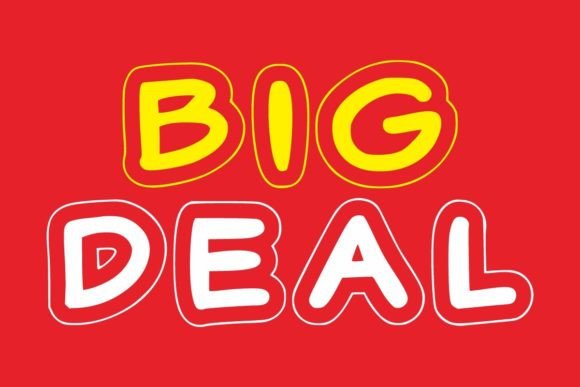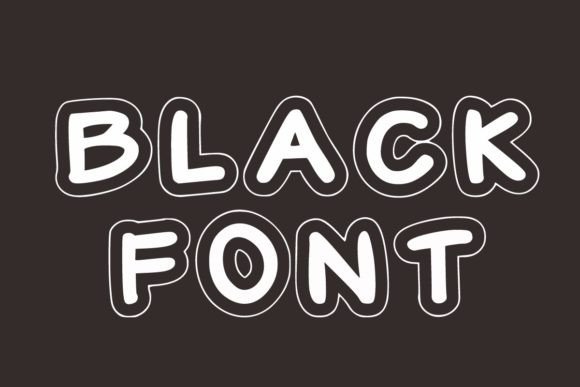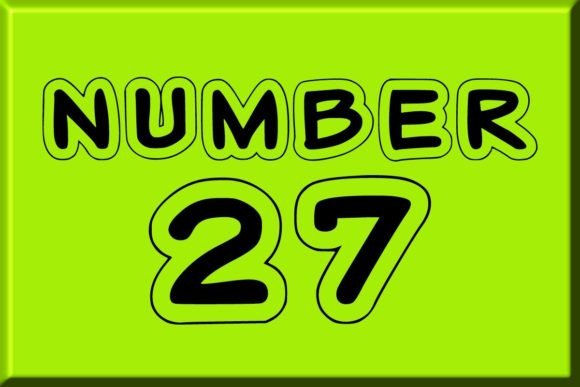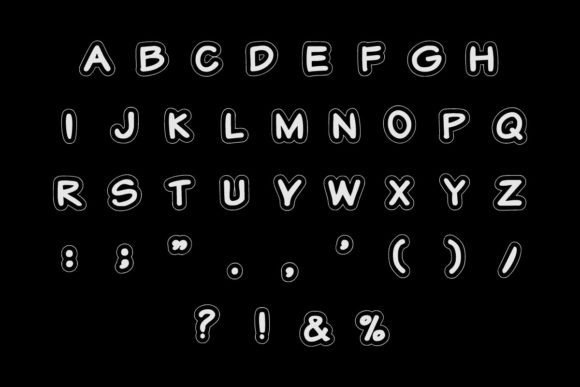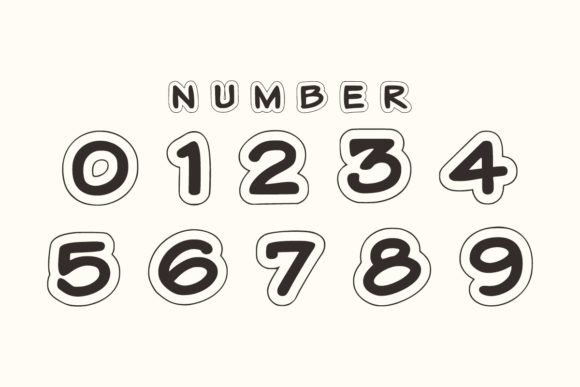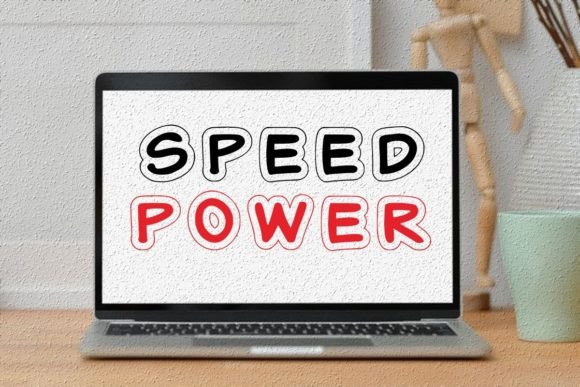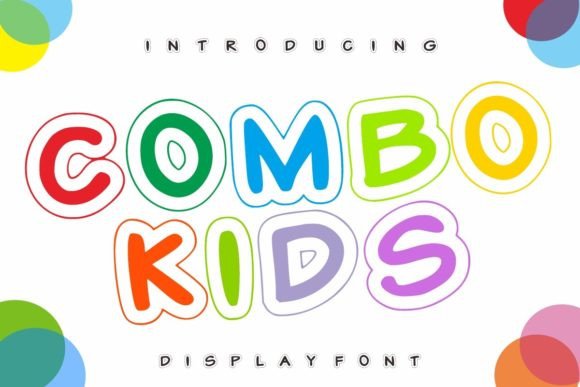
Introducing Combo Kids Font: The Perfect Choice for Playful and Fun Designs
Are you a designer or crafter looking for a font that can add a touch of playfulness and fun to your projects? Look no further than Combo Kids Font! This childish and bold display font is perfect for creating whimsical designs that are sure to delight kids and adults alike.
What is Combo Kids Font?
Combo Kids Font is a unique and eye-catching font that features chunky and rounded letters with a friendly and approachable feel. Its bold and playful design makes it ideal for use in children’s books, toys, and other fun projects. Whether you’re creating a logo, headline, or body text, Combo Kids Font is sure to add a touch of personality and whimsy to your design.
Key Features of Combo Kids Font
- Childish and bold design: Combo Kids Font features a bold and playful design that’s perfect for creating fun and engaging designs.
- Chunky and rounded letters: The font’s chunky and rounded letters have a friendly and approachable feel, making it ideal for use in children’s designs.
- Perfect for playful projects: Combo Kids Font is perfect for use in children’s books, toys, and other whimsical projects.
- Easily readable: Despite its bold and playful design, Combo Kids Font is easily readable, making it perfect for use in body text and headlines.
Use Cases for Combo Kids Font
Combo Kids Font is a versatile font that can be used in a variety of design projects, including:
- Children’s books: Combo Kids Font is perfect for use in children’s books, adding a touch of playfulness and fun to your story.
- Toys and games: The font’s bold and playful design makes it ideal for use in toys and games, adding a touch of personality and whimsy.
- Logos and branding: Combo Kids Font can be used to create fun and engaging logos and branding materials for kids’ products and services.
- Party decorations: The font’s playful design makes it perfect for use in party decorations, such as invitations, banners, and signs.
Tips for Using Combo Kids Font
Here are a few tips for using Combo Kids Font in your designs:
- Use it in large sizes: Combo Kids Font is perfect for use in headlines and titles, where its bold and playful design can really shine.
- Experiment with colors: The font’s playful design makes it perfect for use with bright and bold colors, so don’t be afraid to experiment and find the perfect color scheme for your design.
- Pair it with other fonts: Combo Kids Font can be paired with other fonts to create a unique and engaging design, so don’t be afraid to experiment and find the perfect font combination for your project.
Combo Kids Font is a unique and eye-catching font that’s perfect for designers and crafters looking to add a touch of playfulness and fun to their projects. Its bold and playful design, chunky and rounded letters, and easily readable design make it ideal for use in children’s books, toys, and other whimsical projects. With its versatility and range of use cases, Combo Kids Font is sure to become a favorite font in your design arsenal.